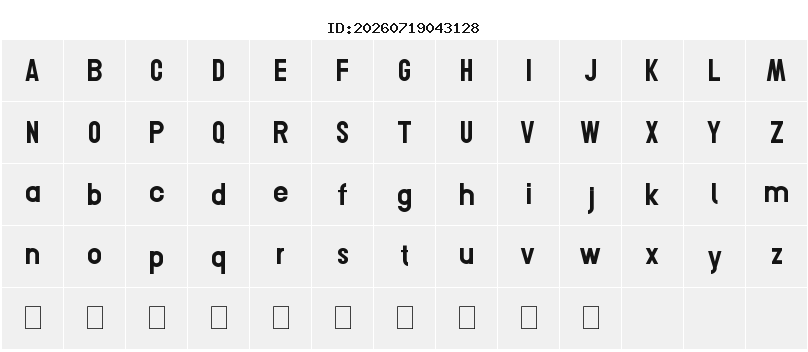
Conero Preview
• Font Name: Conero
• Designer: Erion Dyrmishi
About Conero.ttf
Conero.ttf is a modern, elegant sans-serif font designed for ultimate readability and visual harmony. Perfect for branding, headlines, web design, and print materials.